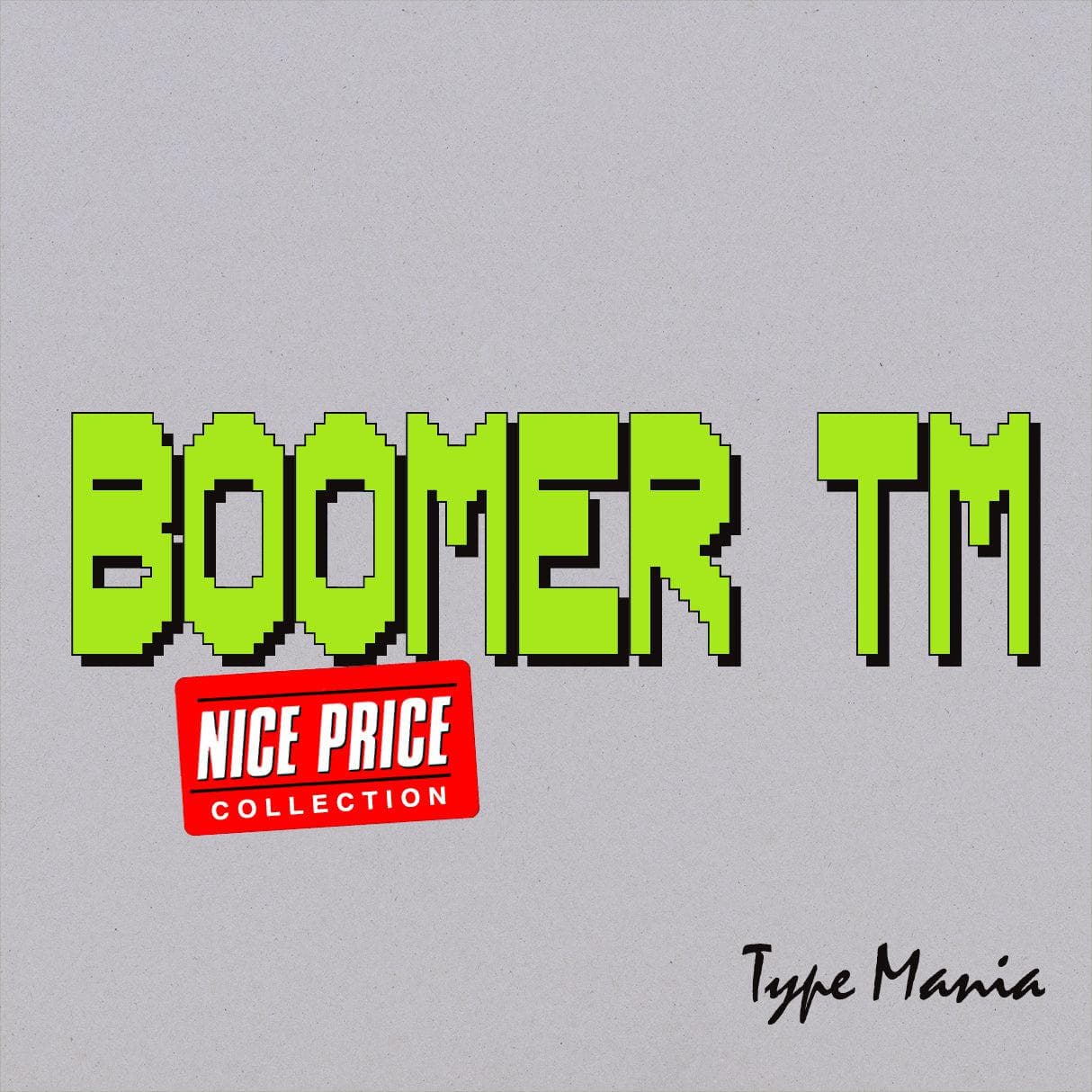
<p>🎨 Get creative with our weird & wonderful pixelated font <strong>Boomer TM</strong> 🚀 Pixel fonts can get funky, too. Feel free to adjust or customize it to better fit your purposes :))</p> <p><strong>Zip includes</strong></p> <ul> <li>OTF file</li> <li>TTF file</li> <li>WOFF2 file</li> </ul> <p><strong>Languages</strong></p> <ul> <li>Basic Latin</li> <li>Western European</li> <li>Euro, Central European</li> <li>Pan African Latin</li> <li>205 glyphs</li> </ul> <p><em>Graphic Design is Easy (with Type Mania)®</em></p>